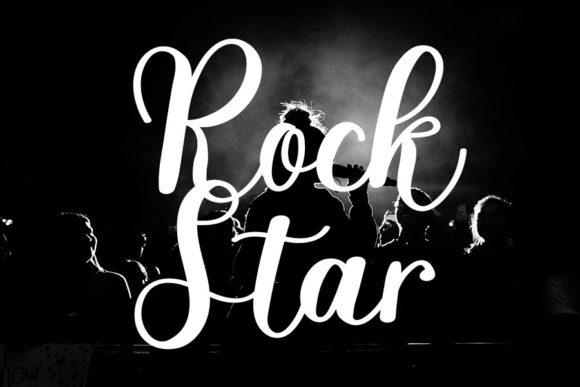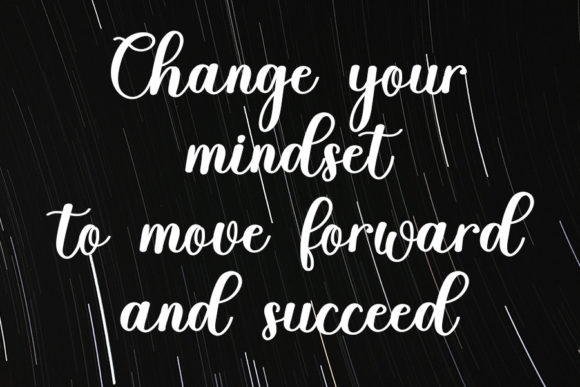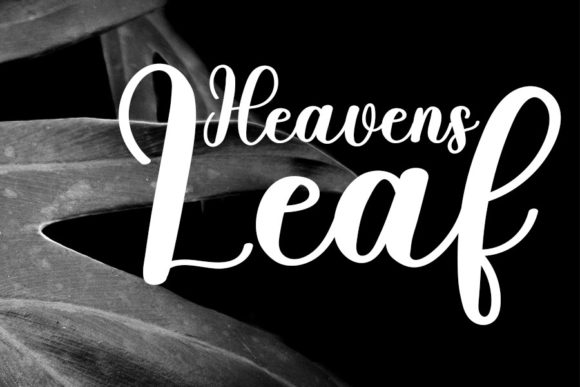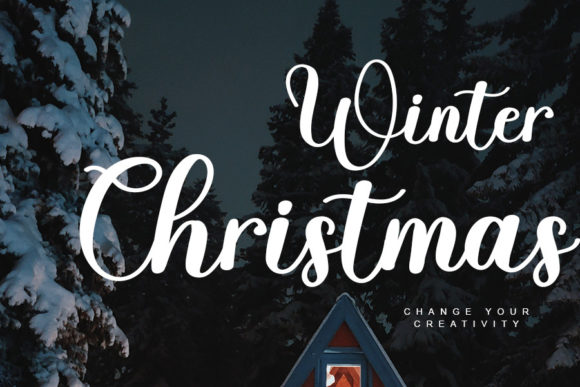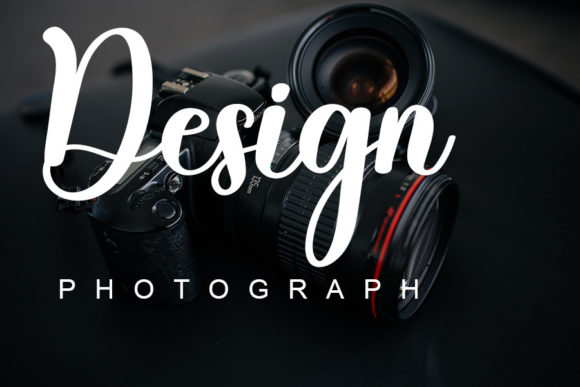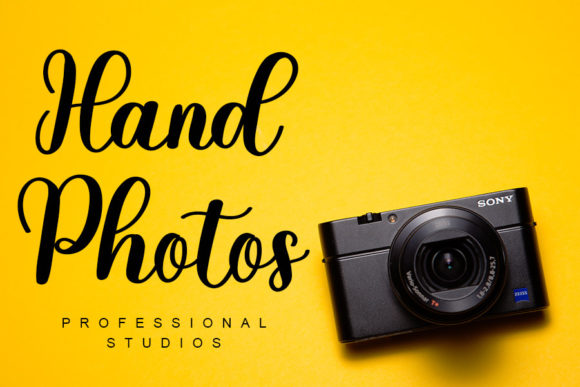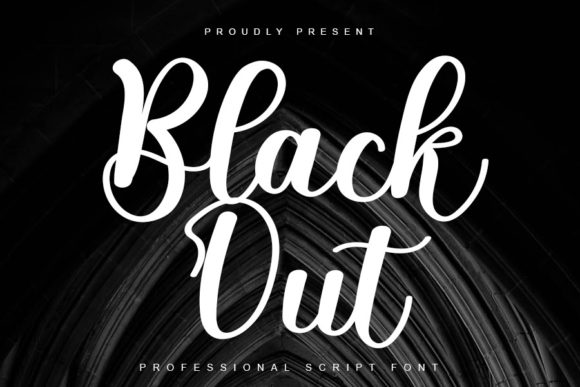
The Ultimate Guide to Black Out Font: Elevate Your Designs with Timeless Elegance
I’ll never forget the design project that made me fall in love with the Black Out font. I was working on a branding campaign for a luxury boutique, and I needed a font that exuded sophistication and elegance. After hours of scouring font libraries and trying out different options, I stumbled upon Black Out – and it was love at first sight! ✨ The unique, handwritten touch of each letter instantly elevated my design, and I knew I had found the perfect fit.
An Honest Review of Black Out Font
- ✨ Unique and beautiful handwritten touch on every letter
- ✅ Perfect for creating eye-catching logos, branding, and quotes
- 💫 Timeless and elegant design that suits various design projects
- 🎨 Highly versatile and adaptable to different design styles
While Black Out font is an amazing choice for designers, there are a few things to keep in mind: 🤔
- ⚠️ Limited availability of stylistic alternates, which might limit design variations
- ⚠️ Some users might find the font too ornate or decorative for certain projects
The Designer Inspiration Behind Black Out Font
The story behind Black Out font is one of passion and creativity. According to its designer, Black Out was inspired by the art of hand-lettering and the beauty of imperfection. The designer aimed to create a font that would capture the essence of handwritten writing, while still being elegant and sophisticated.
Q: What type of designs is Black Out font best suited for?
A: Black Out font is perfect for creating eye-catching logos, branding, and quotes. Its unique, handwritten touch makes it ideal for designs that require a touch of elegance and sophistication.
Q: Is Black Out font available in different weights or styles?
A: Currently, Black Out font is available in a single weight. However, its versatility and adaptability make it easy to use in various design contexts.